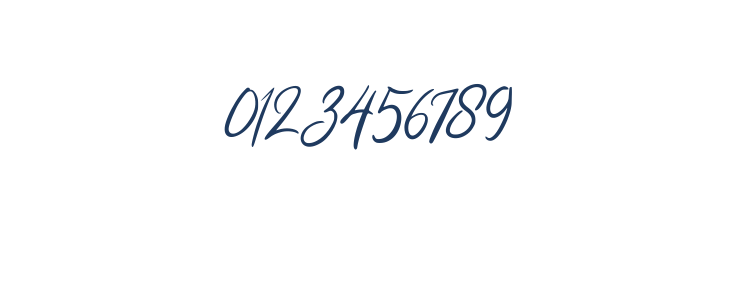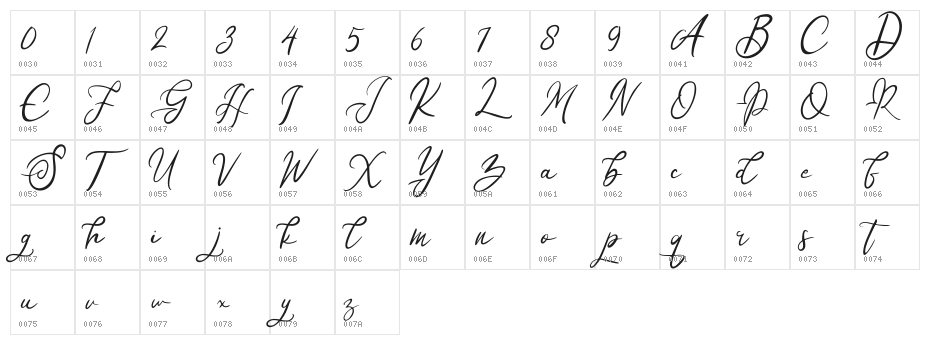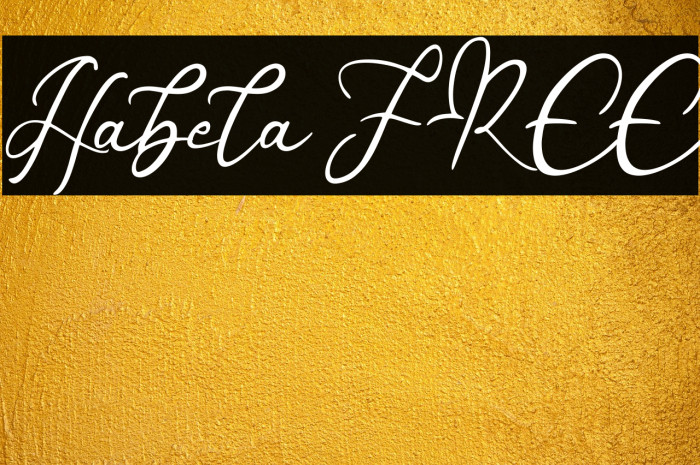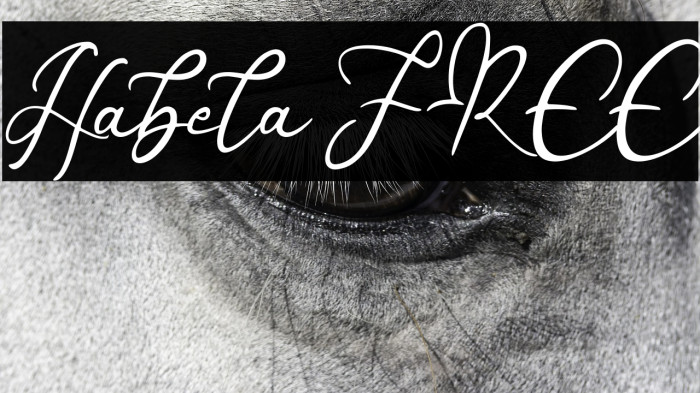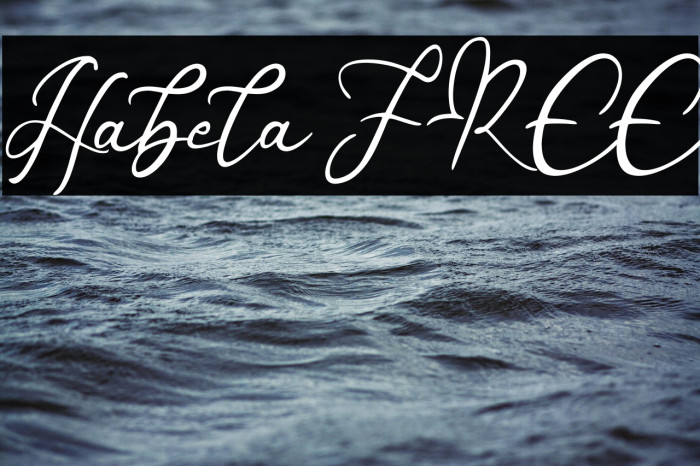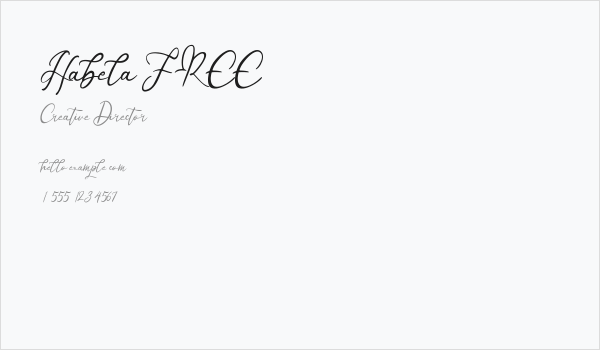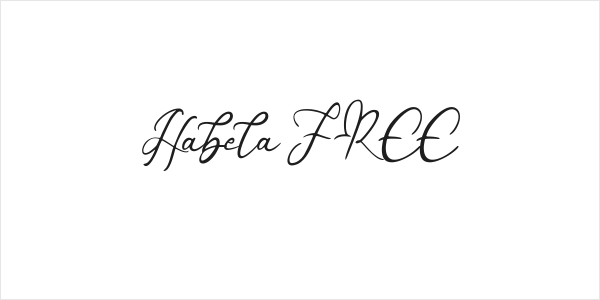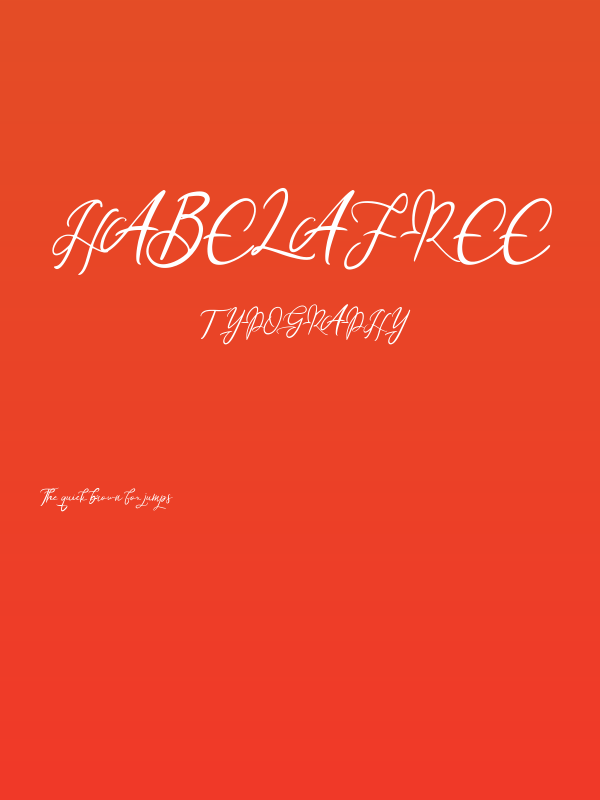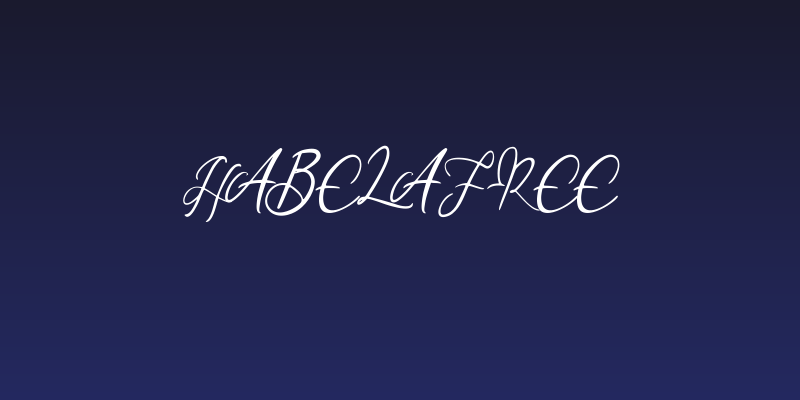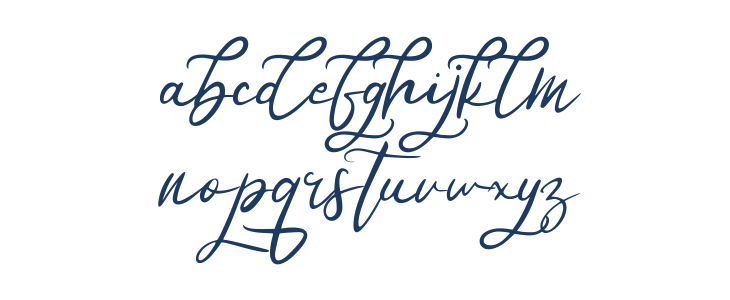
Habela FREE Font
Habela FREE Description
This font exhibits an elegant and flowing script style, characterized by its cursive, handwritten appearance. The uppercase letters are ornate with sweeping curves and loops, while the lowercase letters maintain a consistent fluidity, enhancing readability despite their decorative nature. The numerals and special characters follow the same stylistic cues, ensuring a cohesive look across all glyphs. This font's artistic flair makes it suitable for creative and expressive design projects.
| Proposed Projects | Ideal for wedding invitations, greeting cards, branding, and logo design where a touch of elegance and personal flair is desired. |